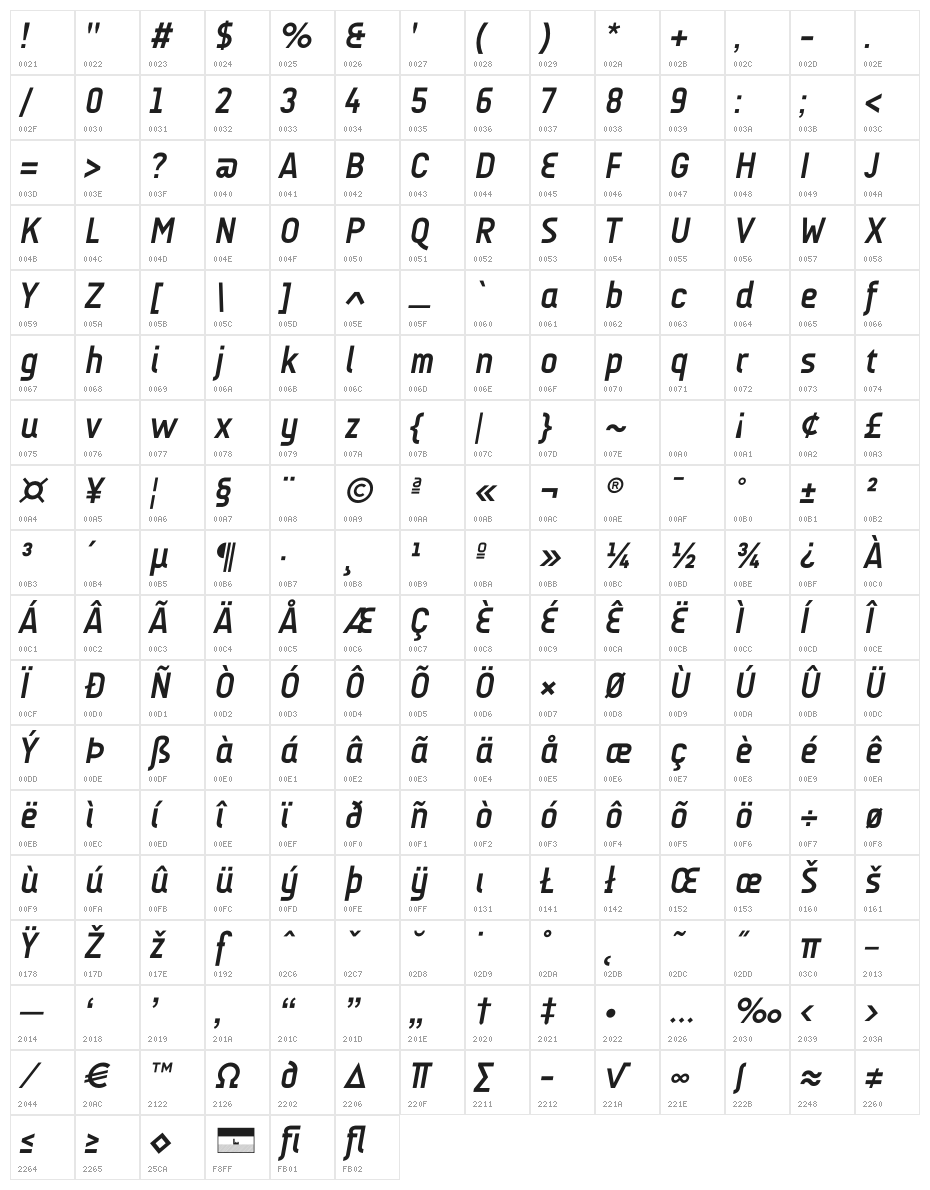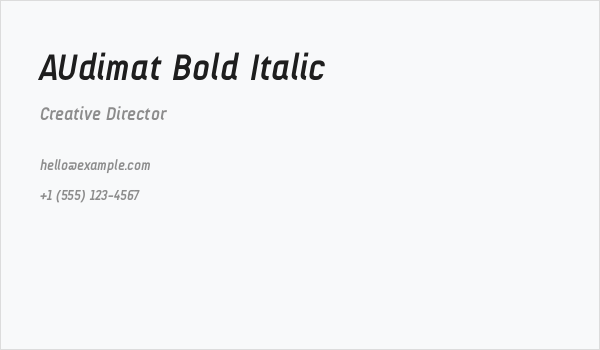
AUdimat Bold Italic Font
AUdimat Bold Italic Description
This font exhibits a modern and dynamic style with a bold and italicized appearance. The characters are slightly slanted, giving a sense of motion and energy. The uppercase and lowercase letters maintain a consistent stroke width, contributing to a uniform look. The numerals are clear and easily distinguishable, while the special characters are well-integrated, ensuring readability and versatility. The overall design is sleek and contemporary, suitable for various digital and print applications.
Use CaseHeadlines, Logos, Advertising
Proposed ProjectsIdeal for branding, advertising, sports-related content, and dynamic web design.